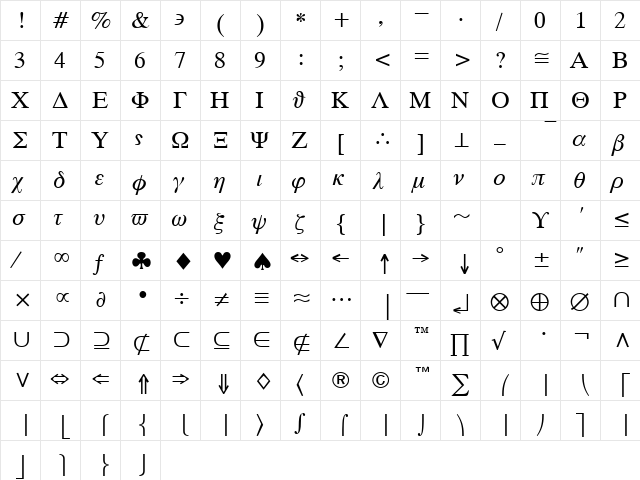
Math Symbols Normal
Design Context for Math Symbols Typeface
Math Symbols is a composed and adaptable typeface that performs quietly and consistently across a wide range of design contexts.
Pro Tip: Use Math Symbols in both headline and body roles to test its range before committing to a single application.